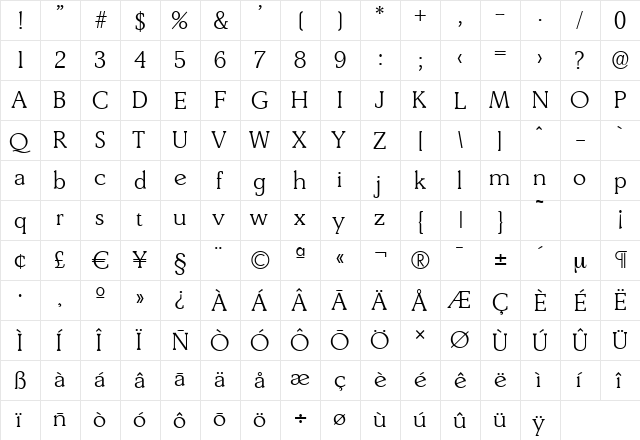
DerringerSerial-Light Regular
Design Context for DerringerSerial-Light Typeface
DerringerSerial-Light offers clean, dependable letterforms without strong stylistic allegiance, making it a practical choice for designers who need flexibility. The delicate stroke weight brings airiness and refinement to layouts.